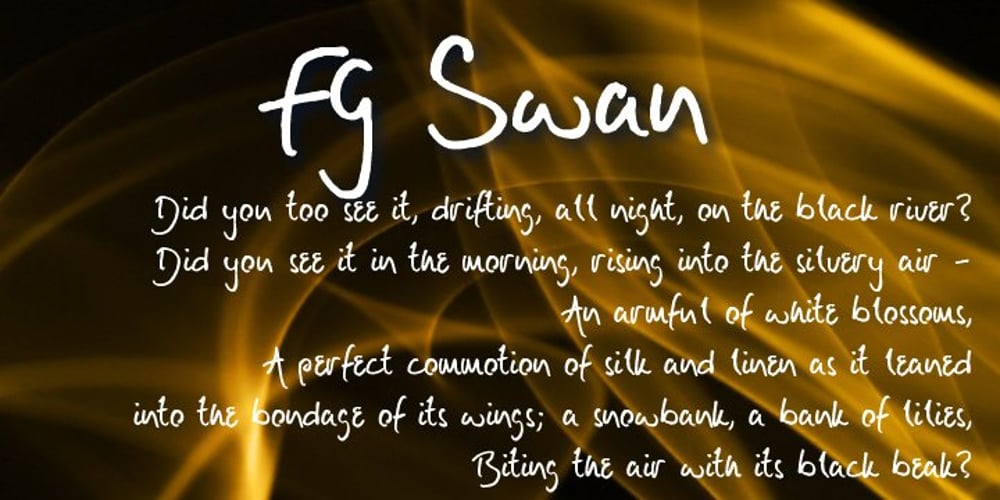
FG Swan Font Family was designed by Ellinor Maria Rapp and published by YOFF. FG Swan contains 1 styles and family package options. Here is FG Swan who is a more artistic and egocentric young woman or male.